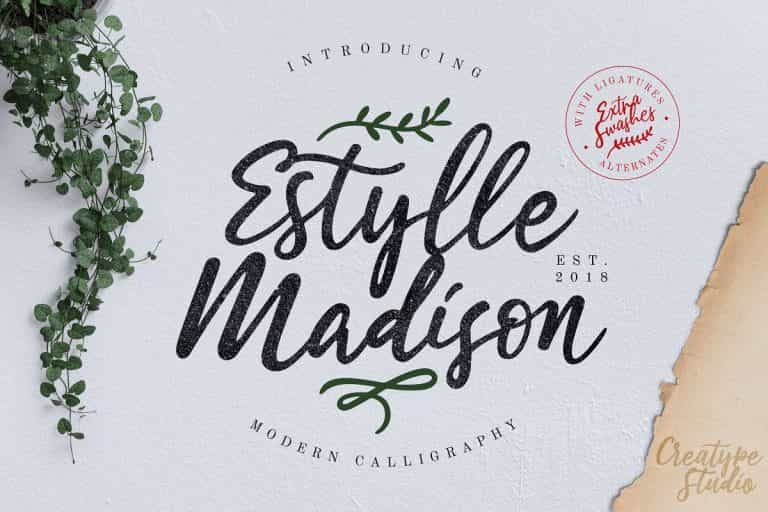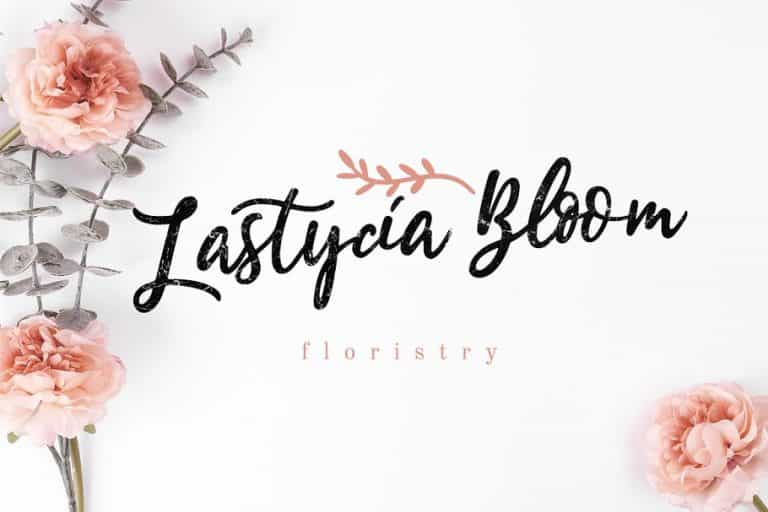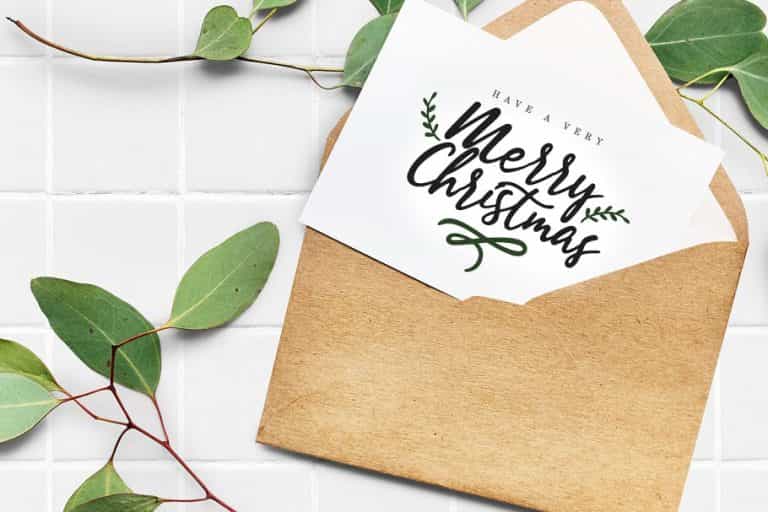
Discover Estylle Madison Script Font, part of the Brush collection—a versatile and unique font perfect for adding a personal touch to your projects. Download it for free and enjoy crafting designs with style, from invitations to social media posts. This font is available exclusively for personal use, giving you the freedom to create without limits. Unlock your creativity with Estylle Madison Script Font today!
Introducing Estylle Madison Calligraphy! Estylle Madison Script Font is sophisticated, elegant and very stylish modern calligraphy with the natural movement of handwriting. The Estylle Madison font is perfect for many different projects like logos & branding, invitation, stationery, wedding designs, social media posts, advertisements. product packaging and design label photography watermarking special events or anything else you can think of!